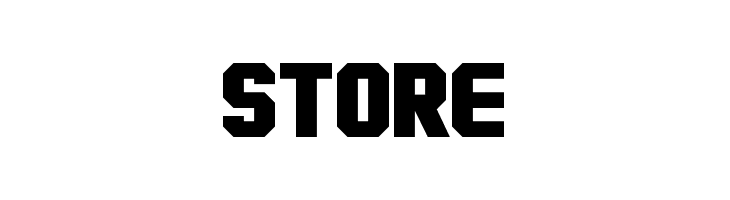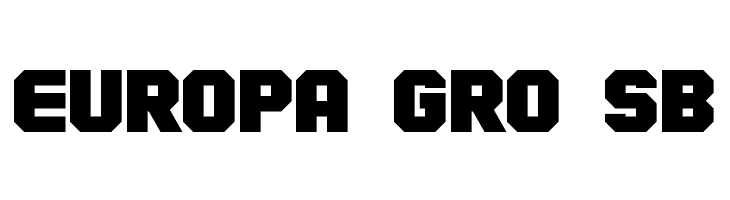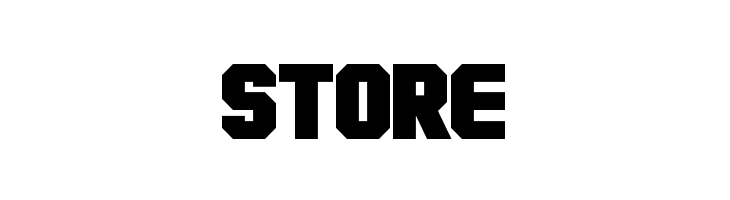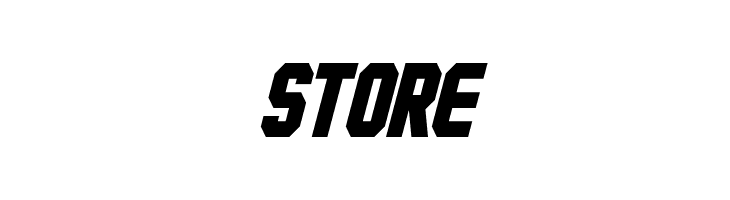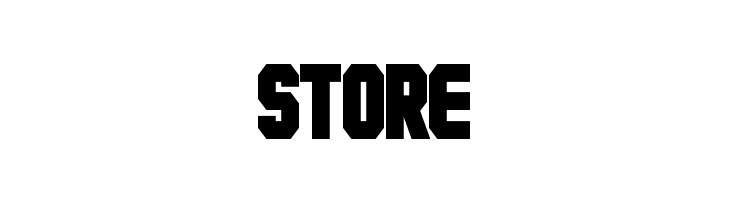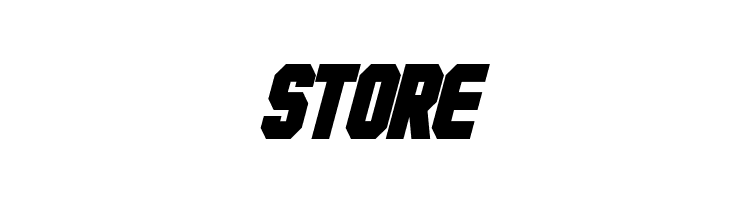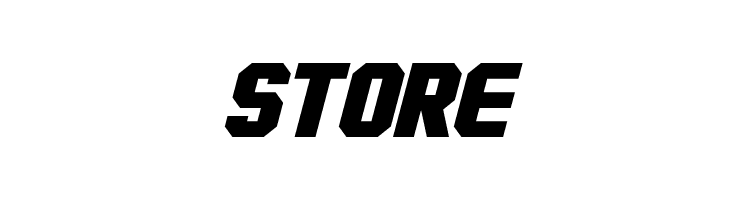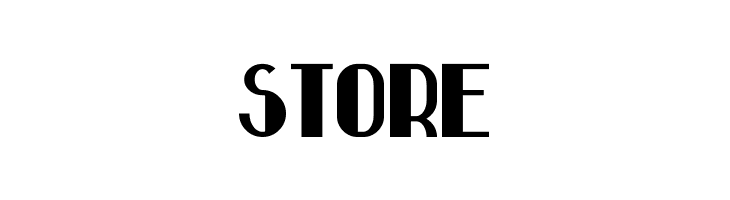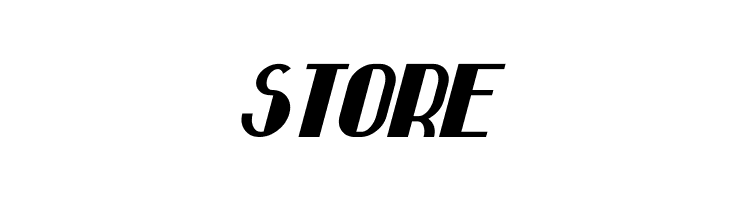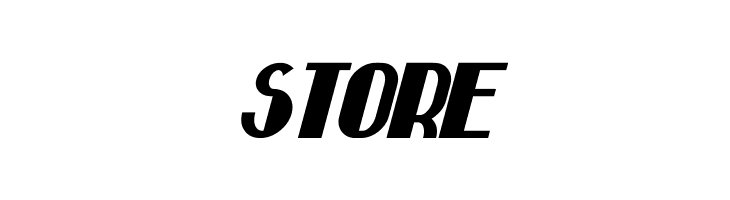
A bold, modern font with strong vertical lines and subtle curves.
A bold, modern font with strong geometric shapes and high contrast.
A bold, italicized font with thick strokes and a dynamic slant.
A bold, italic font with sharp angles and a dynamic slant.
A bold, geometric font with angular lines and a modern, blocky appearance.
A bold, geometric font with a strong, industrial style.
A bold, condensed font with a geometric and powerful style.
A bold, italic, and condensed font with high contrast and dynamic angles.
Bold, italicized, and condensed with sharp angles for a dynamic look.
A bold, geometric italic font with a futuristic and dynamic style.